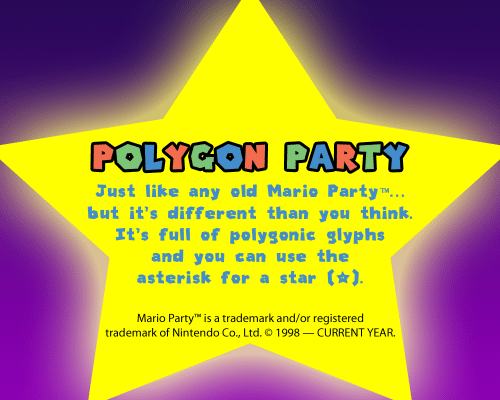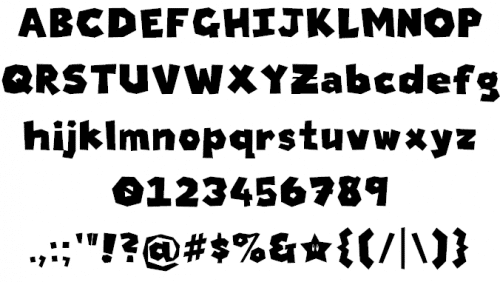
Polygon Party Font is another font I made back in 2015. It looks a lot like a Mario font, but it’s a lot more different than you think. You can use the asterisk (*) to make a starman, as in Super Mario Bros. And, if you’re using a Mac, when you press OPTION+SHIFT+K (Apple logo, U+F8FF), you get a speech bubble with “XEN!” written on it. You can even use it for a custom Mario Party font, or for your Mario fan games.